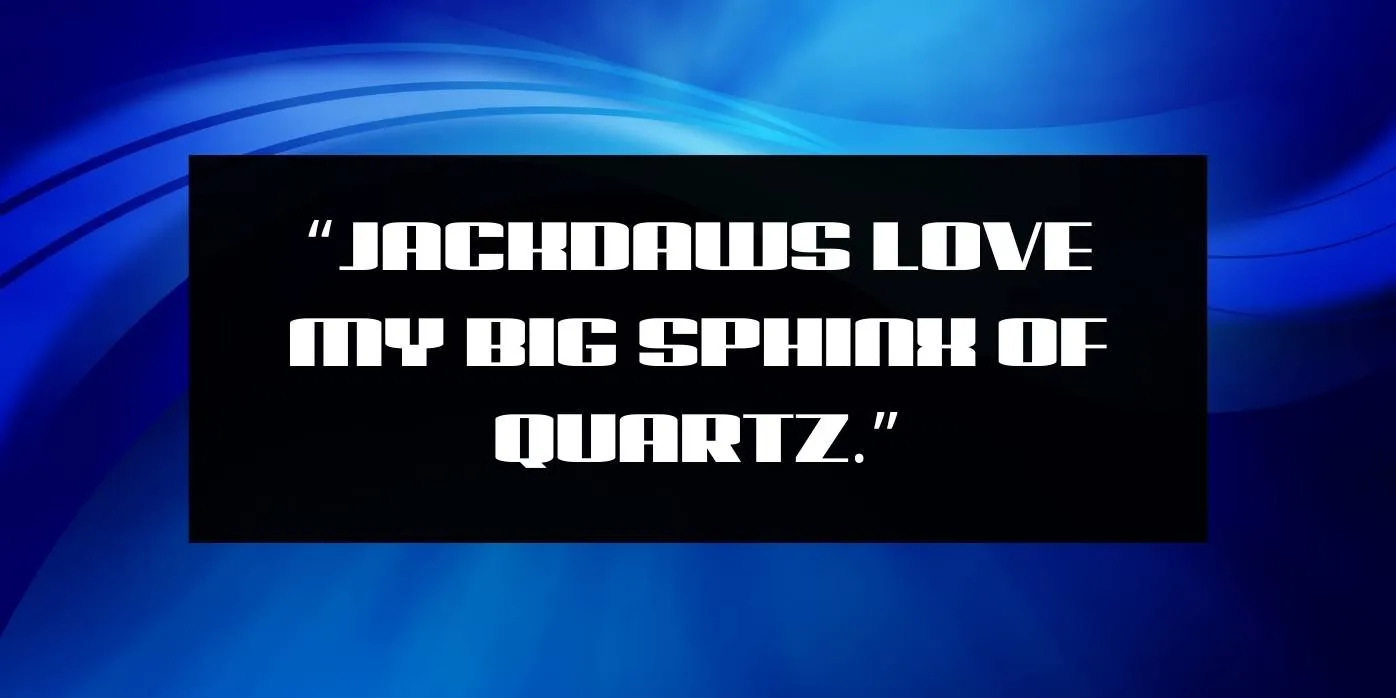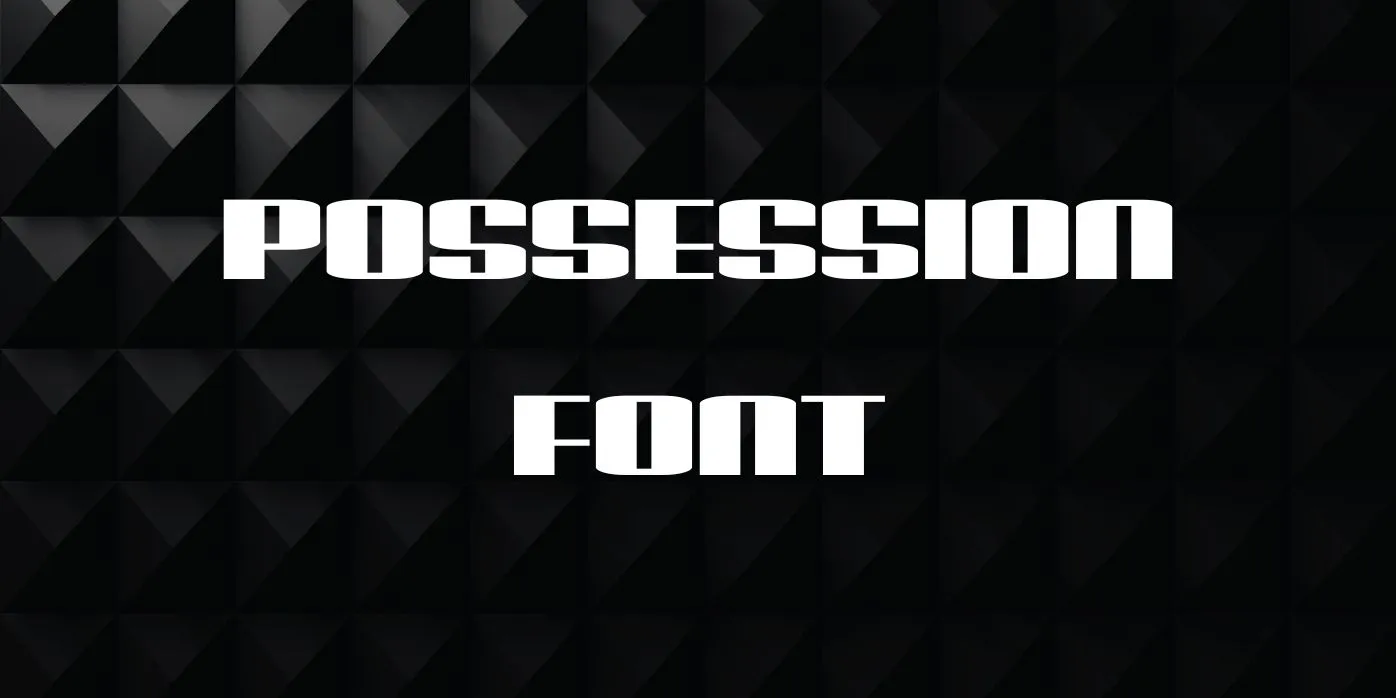
Possession Font
Possession Font is a fancy new font that is very popular with graphic designers and web developers. It has a unique style that makes it stand out from other fonts, and it is also very easy to read. This font was created by designer Simon Stratford, and it is available for free download on his website. This Font is based on the typeface called Lithos, which was designed by Greek sculptor Callimachus in the late second century BC.
Lithos is one of the oldest typefaces in use today, and Stratford has modernized it with some new features that make it perfect for use on the web. This Font is available in both TrueType and OpenType formats, and it includes support for all major languages. It is also compatible with Windows and macOS. For making something very special and unusual you can try to pair the typeface style with knockout font and can take a chance to get people’s attraction.